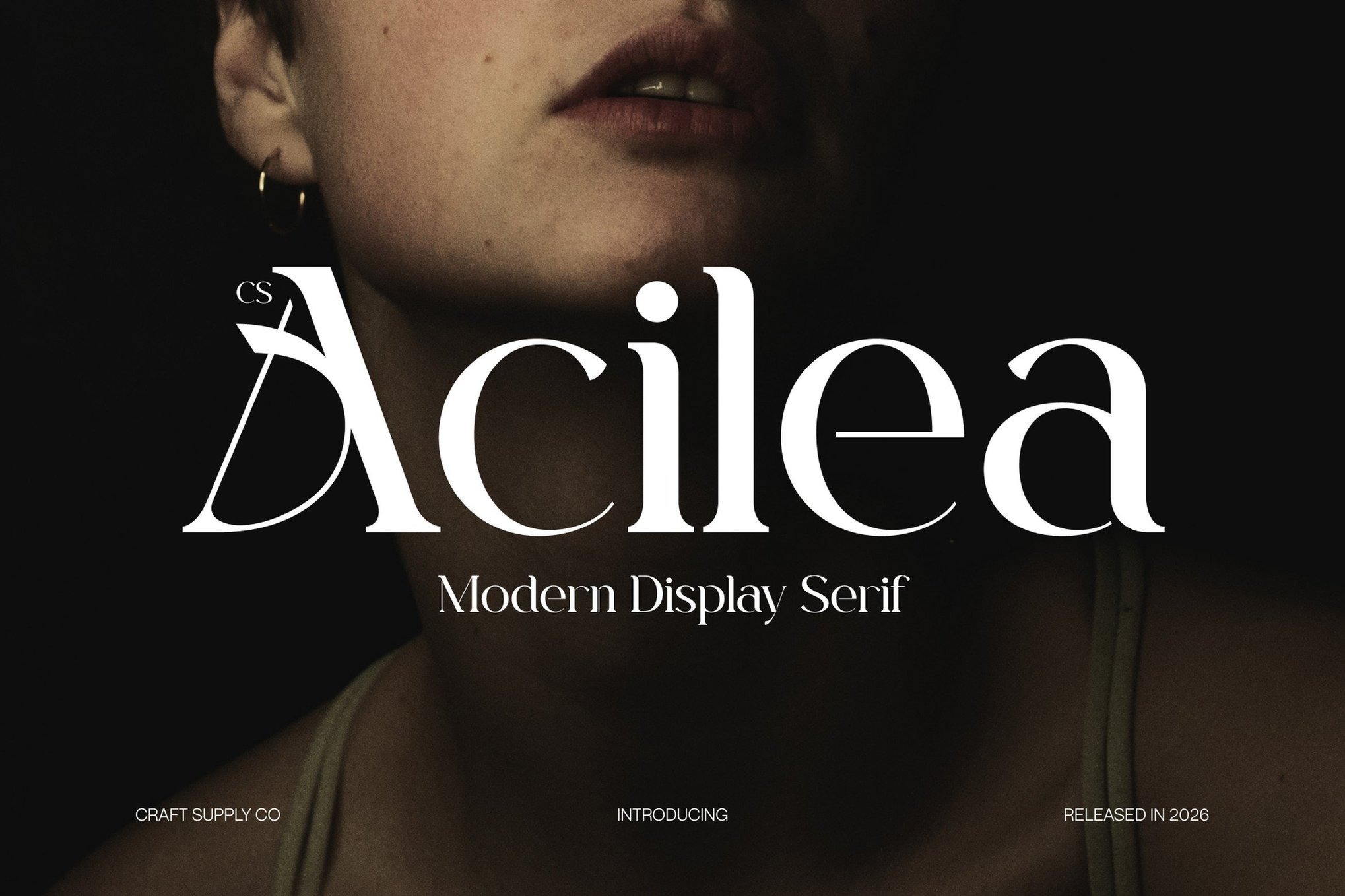
Acilea Font
Acilea Font is a flexible and reliable font created to fit multiple design needs, from branding and packaging to social media and editorial layouts. CS Acilea – Modern Serif with Refined Luxury Style Modern Serif with Fresh Elegance This is a modern serif font that embodies a refined sense of style and contemporary luxury. Its clean structure and balanced proportions create a sophisticated appearance that feels both timeless and current. Designed to bring elegance to modern typography, this font delivers a polished and graceful presence in every composition.
Refined Details with Contemporary Appeal The letterforms of this font combine classic serif foundations with modern refinement, resulting in shapes that feel fresh, stylish, and visually pleasing. Smooth curves and carefully crafted proportions enhance readability while maintaining an upscale and fashionable personality. The overall design feels confident, elegant, and beautifully restrained.
Luxury Tone with Versatile Character This font communicates a high-end tone without being overly decorative, making it highly versatile across different creative contexts. Its refined style adapts effortlessly to both minimal and expressive layouts, providing a luxurious typographic voice that remains clear and approachable.
Perfect for Logos and Headline Design Ideal for logos, titles, headlines, and a wide range of creative projects, this font excels in branding and editorial applications. Whether used for premium branding, modern campaigns, or stylish layouts, it delivers a refined and luxurious presence that elevates contemporary design with elegance and clarity.